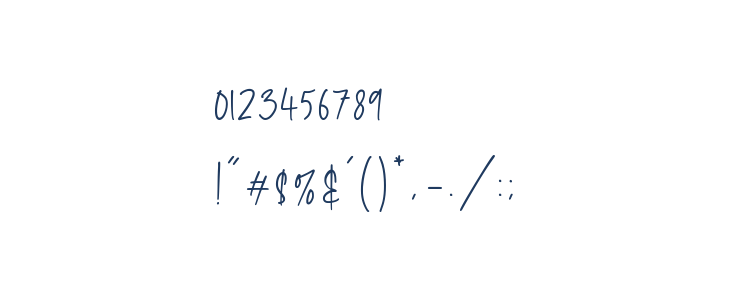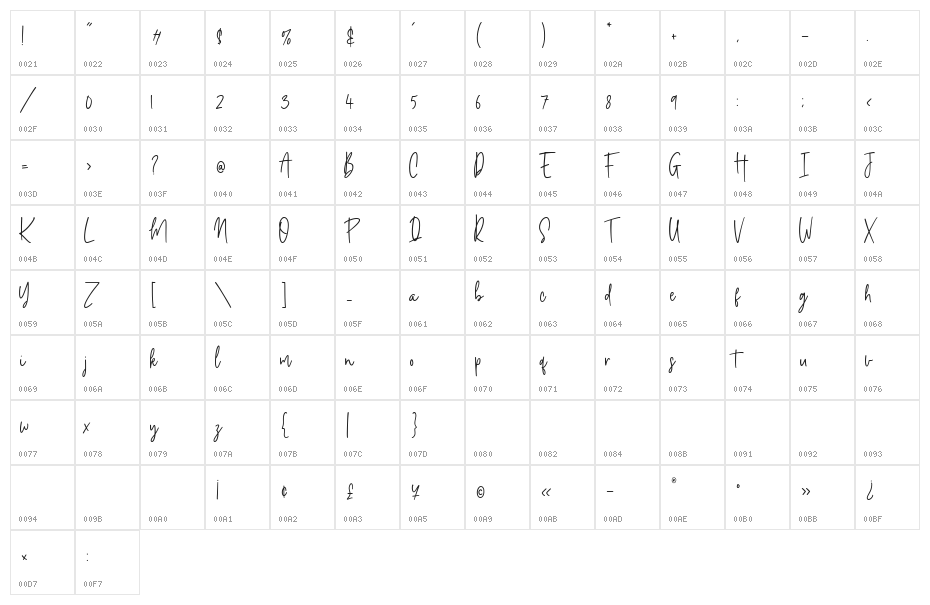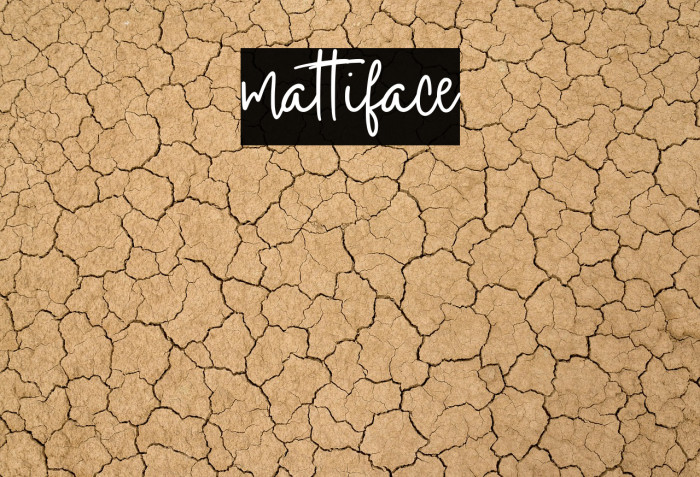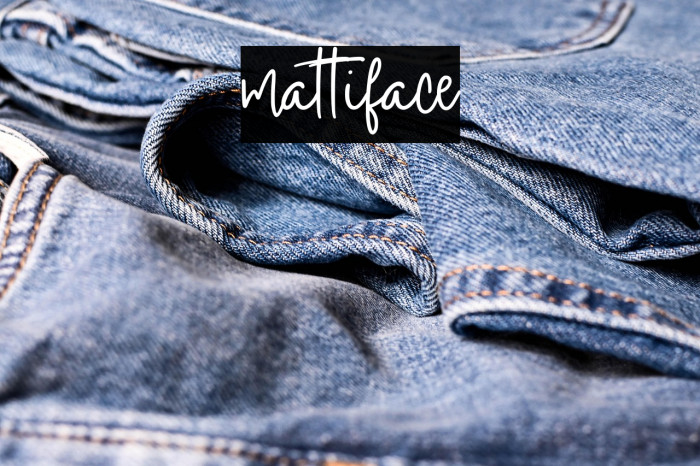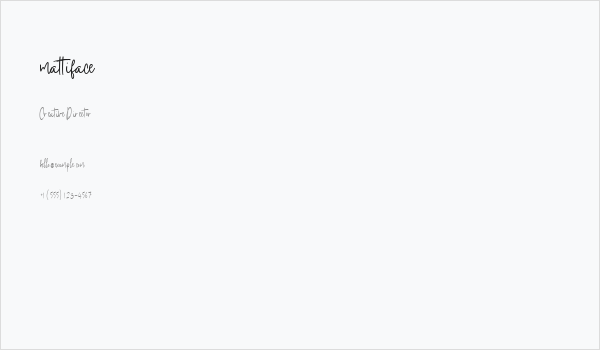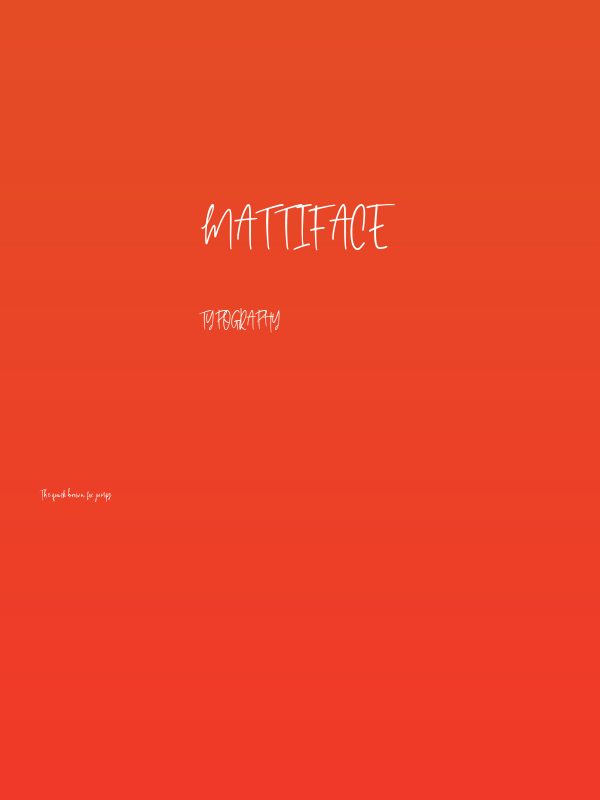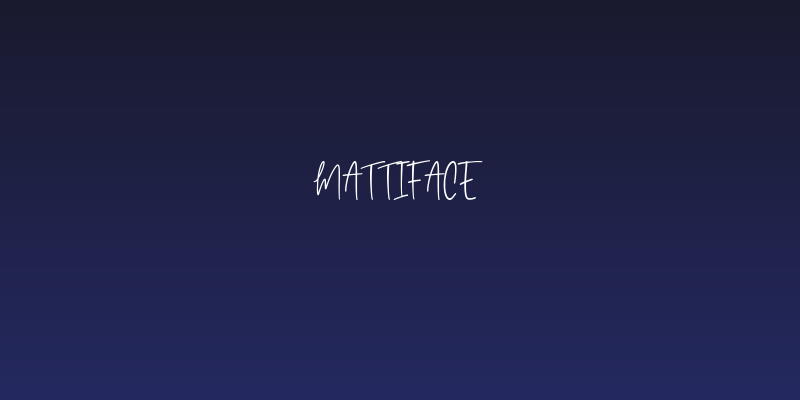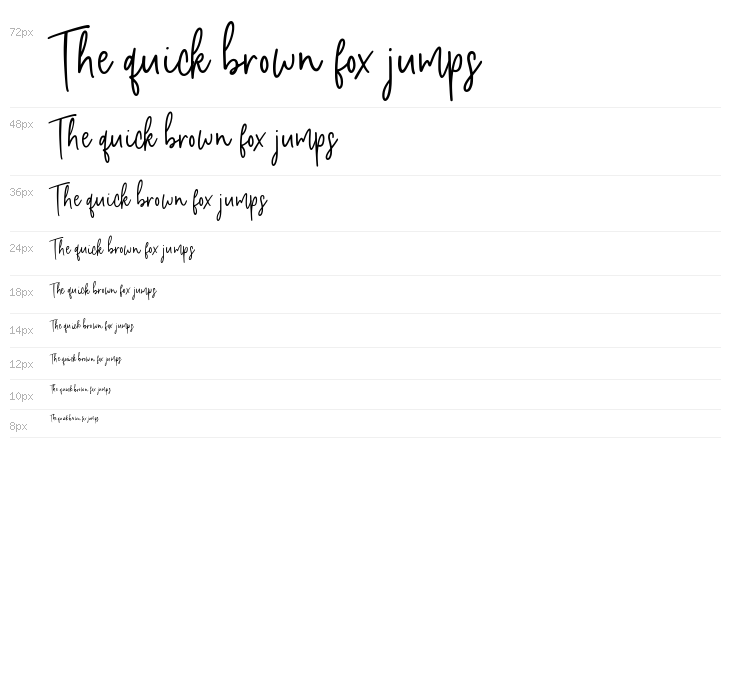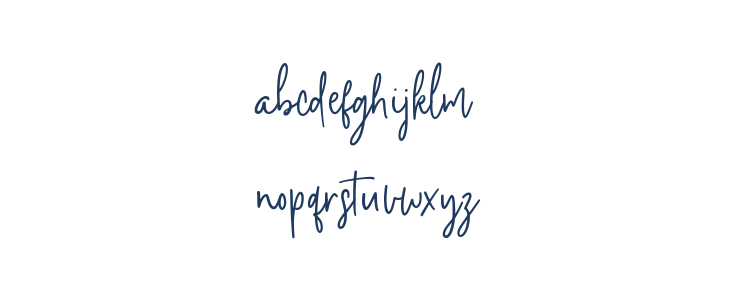
mattiface Font
mattiface Description
This font exhibits a playful and casual handwritten style, characterized by its flowing and slightly irregular letterforms. The uppercase letters are tall and slender, with a slight slant that adds a dynamic feel. The lowercase letters maintain a consistent style, with rounded edges and a smooth, continuous flow. The numerals are clear and legible, matching the overall aesthetic. Special characters are integrated seamlessly, maintaining the font's cohesive look. This font's informal and friendly appearance makes it suitable for creative and personal projects.
| Use Case | Logos, Headlines, Personal projects |
| Proposed Projects | Ideal for greeting cards, invitations, personal branding, and social media graphics. |